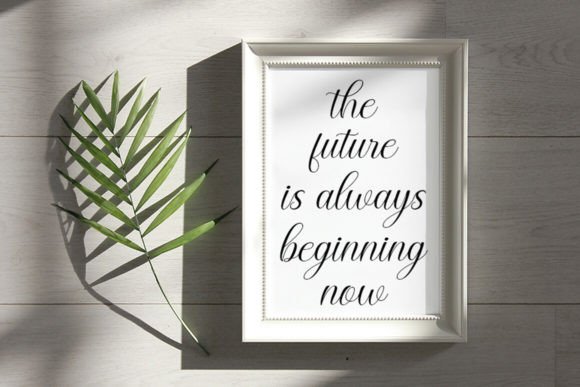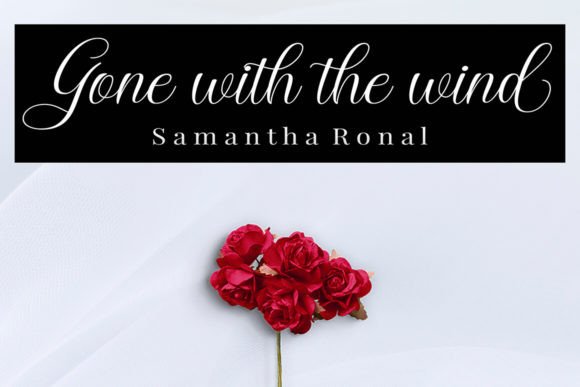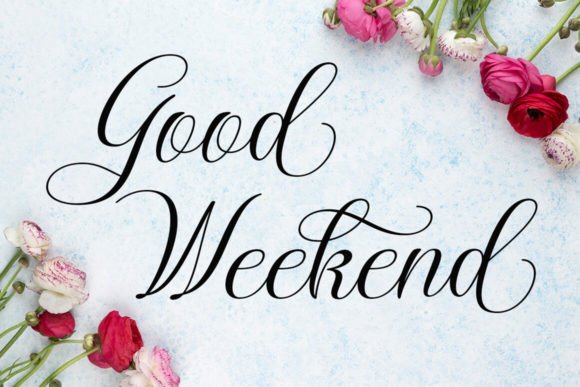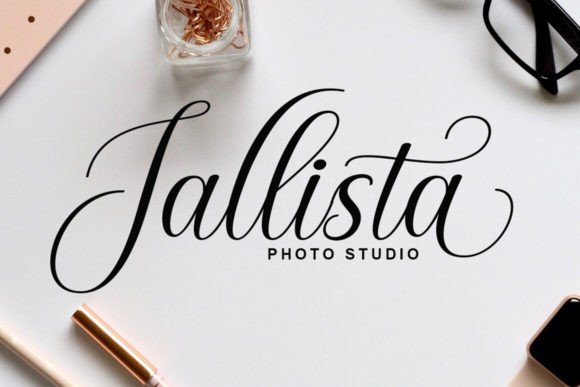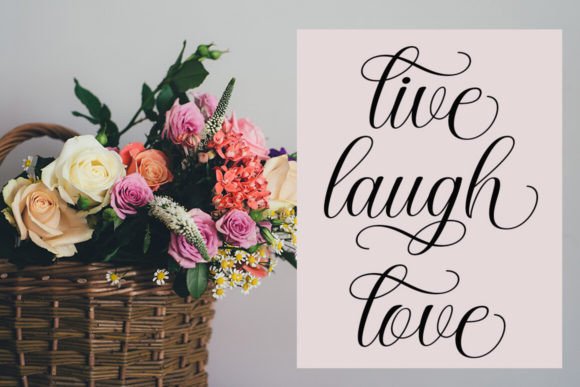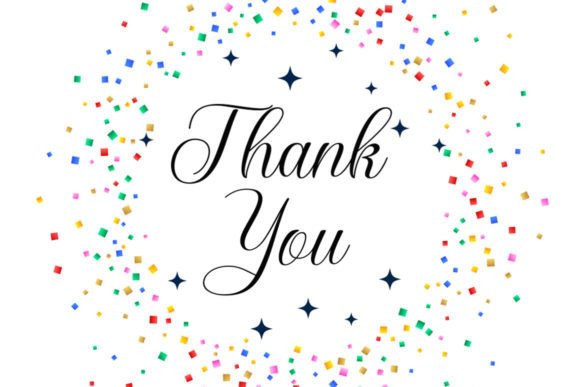
Introduction to Gellatia Font
Have you ever stumbled upon a design that makes you feel like you’re floating on a cloud of creativity? That’s exactly what happens when you come across the Gellatia Font. This soft and sweet bold typeface has a way of making your designs feel like a warm hug on a cold day. Its characters dance along the baseline with elegance and playfulness, making it the perfect addition to any creative project.
As a designer, you’re always on the lookout for high-quality fonts that can elevate your work to the next level. Gellatia Font is a valuable resource that can add a touch of sophistication and whimsy to your designs. Whether you’re working on a logo, wedding invitation, or social media post, this font is sure to impress. And the best part? You can download it for free, making it an accessible design resource for anyone.
With its transparent background and versatile style, Gellatia Font is a must-have in your design arsenal. Whether you’re working on a personal project or a client-based task, this font is sure to bring a smile to your face and a touch of magic to your designs.
Key Features of Gellatia Font
- High-quality design resource ideal for creative projects requiring a unique, elegant touch.
- Comes with a transparent background, allowing for seamless integration into various design applications.
- Features a sophisticated, cursive script with intricate details, perfect for titles, headings, and body text.
Honest Review: Gellatia Font
As a designer, I’m always on the lookout for high-quality fonts to elevate my creative projects. The Gellatia Font is one such find that I’m excited to share with you.
What works well for me is the Gellatia Font’s versatility. It comes in a range of weights and styles, making it suitable for various design applications. The font’s clean and modern design ✨ makes it perfect for digital projects, while its playful feel ✨ lends itself well to more creative and experimental work.
- Range of weights and styles
However, I did find that the Gellatia Font can be a bit tricky to work with at times ⚠️. The font’s irregularities and quirks can make it challenging to achieve a uniform look across different design elements. Nevertheless, with a bit of patience and practice, I was able to get the hang of it.
Overall, I’m really impressed with the Gellatia Font and would highly recommend it to fellow designers looking for a high-quality, free design resource. With a little practice and patience, you’ll be creating stunning designs in no time!
Tips for Getting the Most Out of Gellatia Font
For optimal results, use the Gellatia Font with a transparent background to create a clean and modern design. You can also experiment with different font sizes and styles to add visual interest to your design project.
The Gellatia Font is a versatile design resource that can be used for various purposes, including logos, business cards, and social media graphics. Its high-quality design makes it an ideal choice for creative projects that require a professional touch.